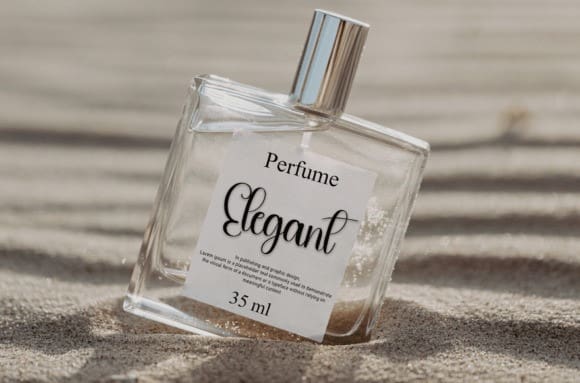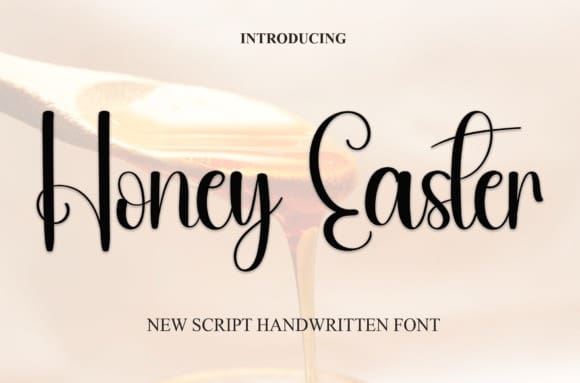
Honey Easter Font
Honey Easter Font is a sweet and friendly handwritten font. Fresh and neat, this font is ideal for writing wedding invitations, cards, or any other design that might need a fun touch!